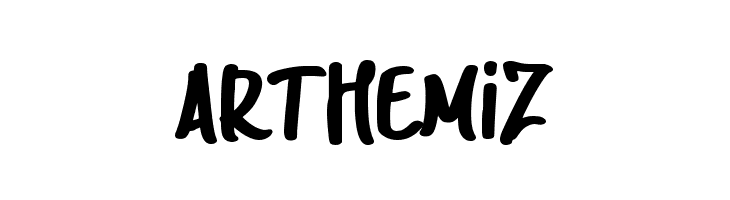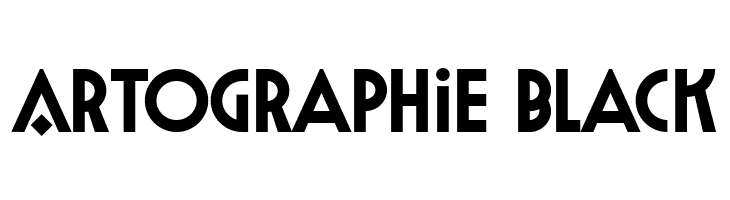
An elegant and dynamic script font with sweeping curves and intricate details.
A bold, expressive script font with dynamic flow and smooth curves.
A lively handwritten font with fluid, dynamic strokes and a casual elegance.
A playful, casual handwritten font with smooth, flowing lines.
A bold, rounded font with a playful, retro style.
A bold, playful script font with rounded strokes and a dynamic slant.
A decorative Blackletter font with intricate details and a historical, Gothic style.
A bold, modern sans-serif font with clean lines and a slightly condensed style.
A modern, rounded sans-serif font with a clean and approachable style.
A dynamic and elegant script font with flowing, cursive letterforms.
A bold, geometric font with sharp edges and a modern style.
A bold, geometric outline font with sharp angles and clean lines.
A bold, rounded font with a modern geometric style.
A dynamic handwritten font with elongated, expressive letterforms.
A dynamic and energetic script font with flowing, cursive letterforms.
A flowing, cursive font with elegant loops and swashes, perfect for creative designs.
A fluid and elegant script typeface with a handwritten appearance.
A bold, hand-drawn font with a playful and energetic style.
A playful, hand-drawn font with tall, narrow characters and rounded edges.
A cursive, handwritten-style font with smooth, connected letters.
A bold, cursive font with a flowing, handwritten style.
A playful, hand-drawn script font with interconnected characters and a whimsical style.
A fluid, cursive script font with a handwritten feel.
A refined script font with elegant, flowing cursive letters.
A bold, geometric font with sharp angles and a monogram-like style.
A bold, condensed, and geometric font ideal for monograms and logos.
A bold, angular font with a geometric and modern design.
A graceful and elegant handwritten script font with smooth, flowing lines.
An elegant and flowing script font with graceful curves and dynamic strokes.
A playful and elegant script font with fluid strokes and decorative elements.